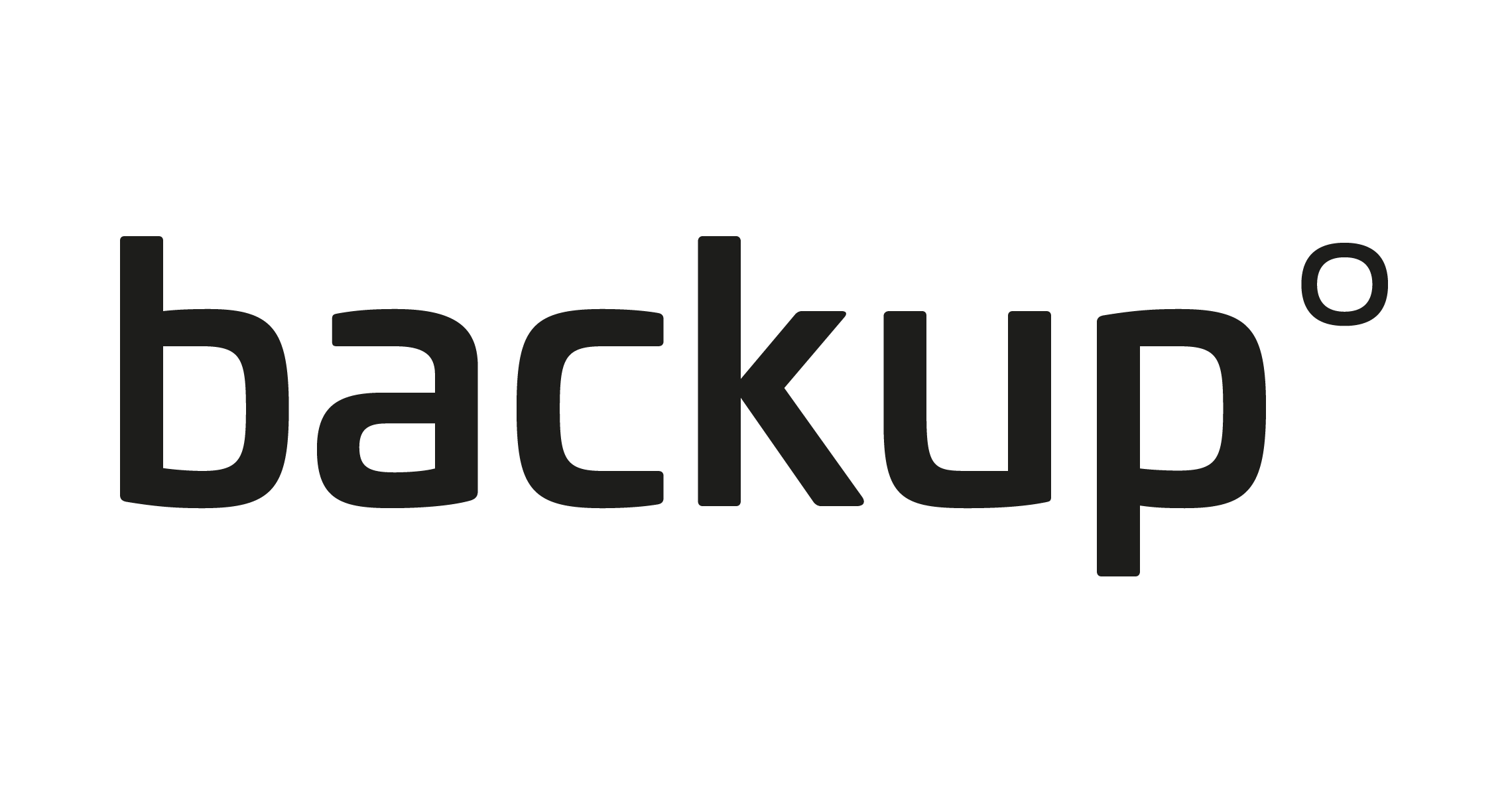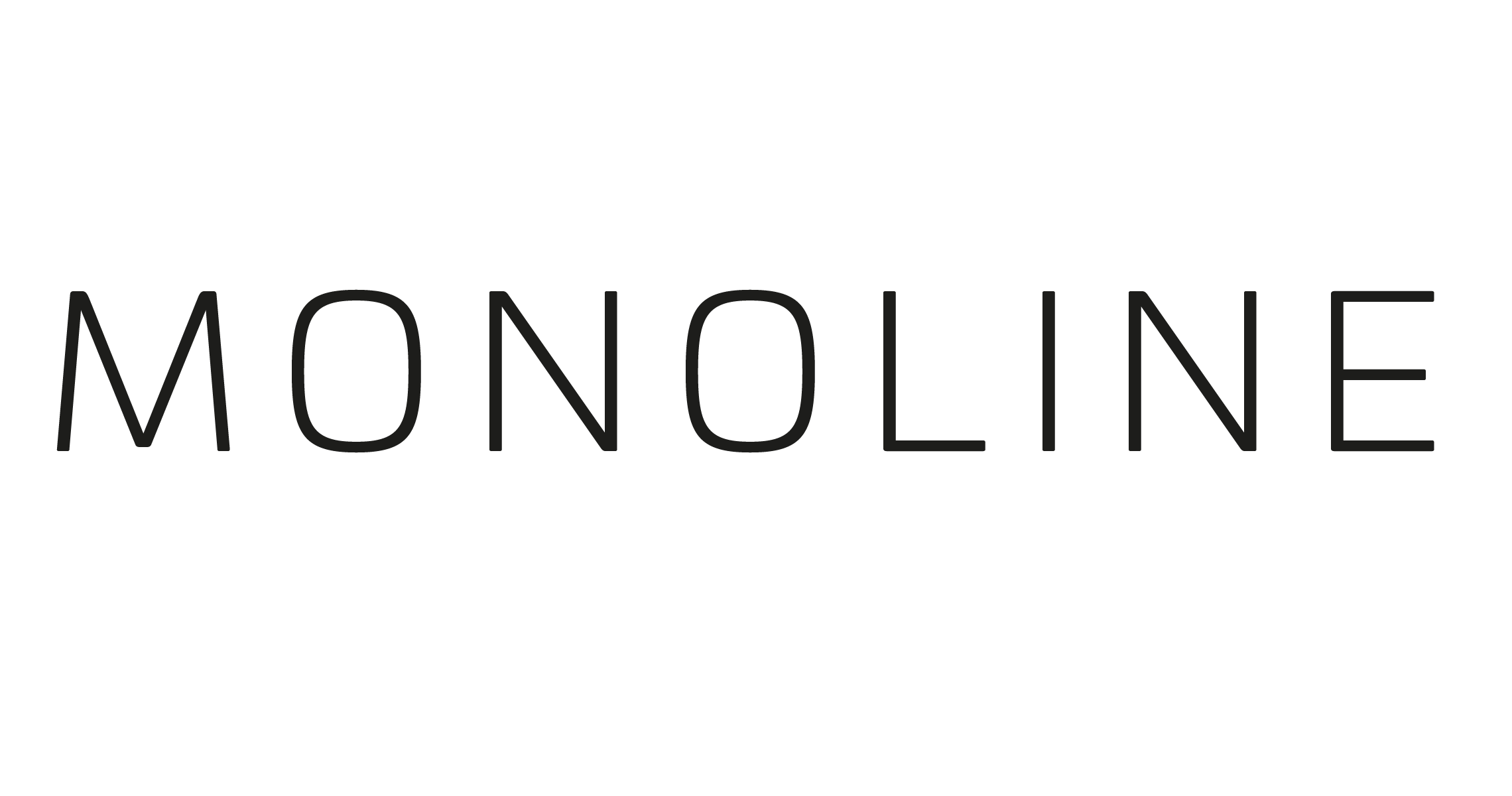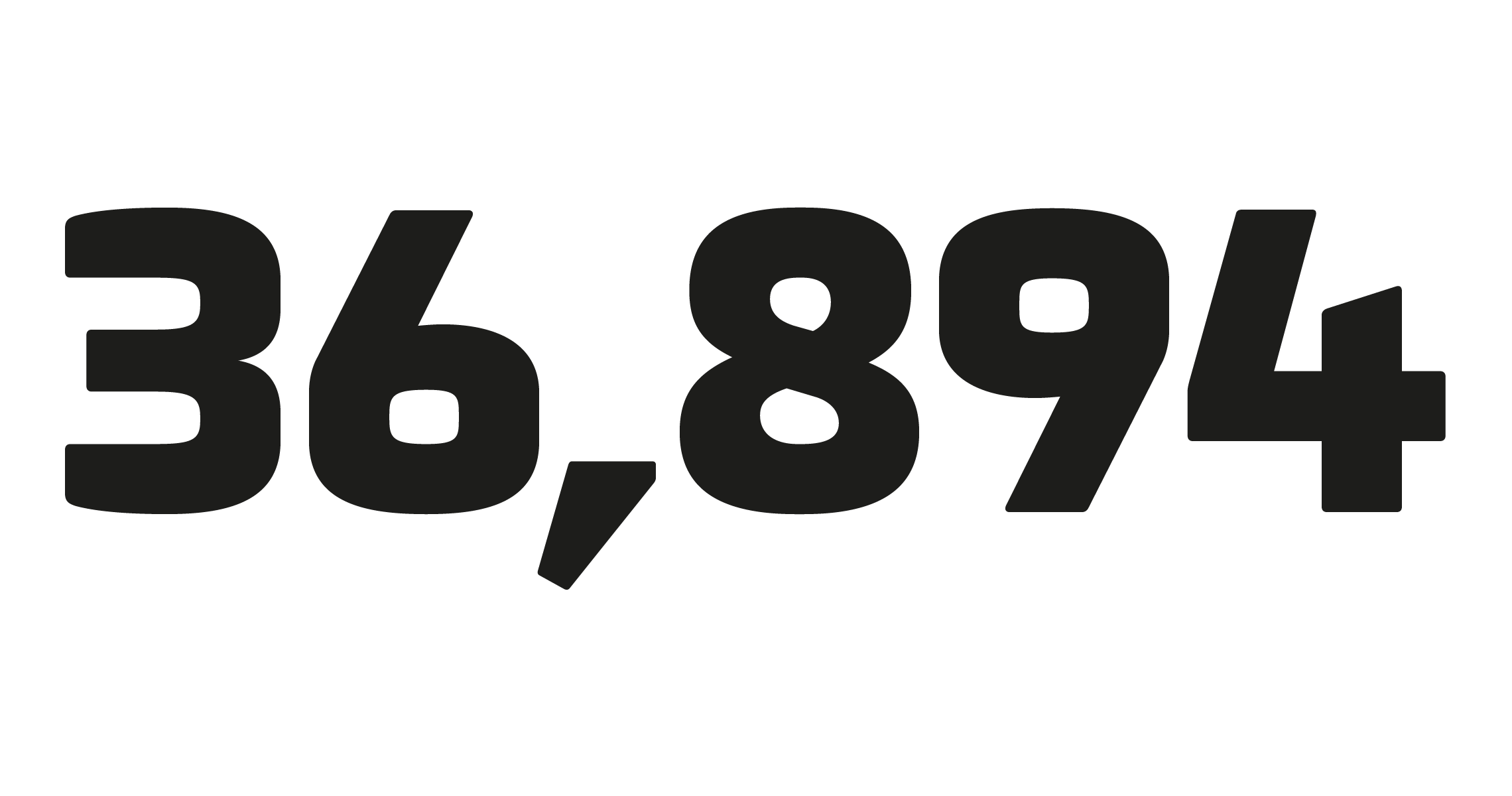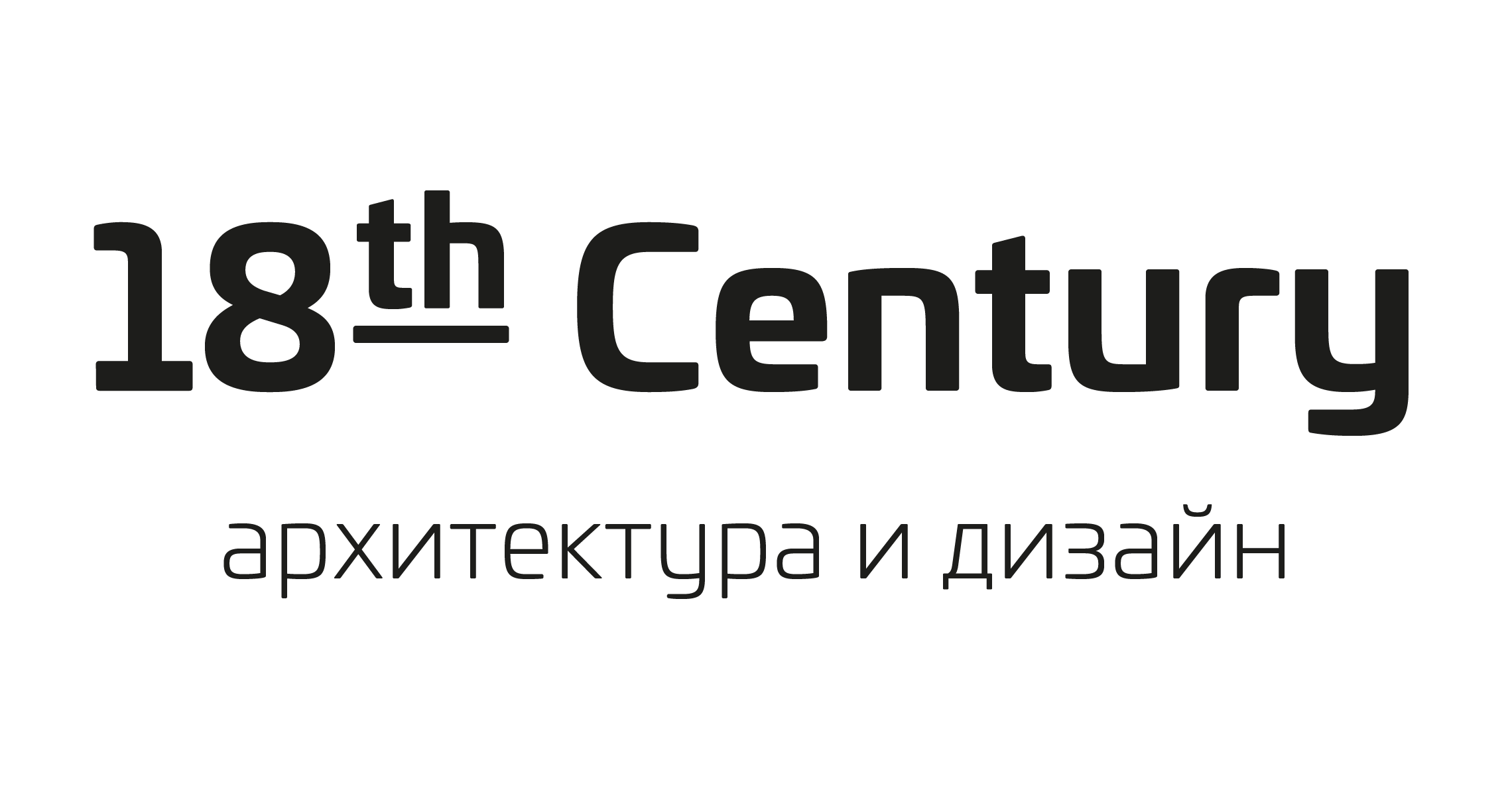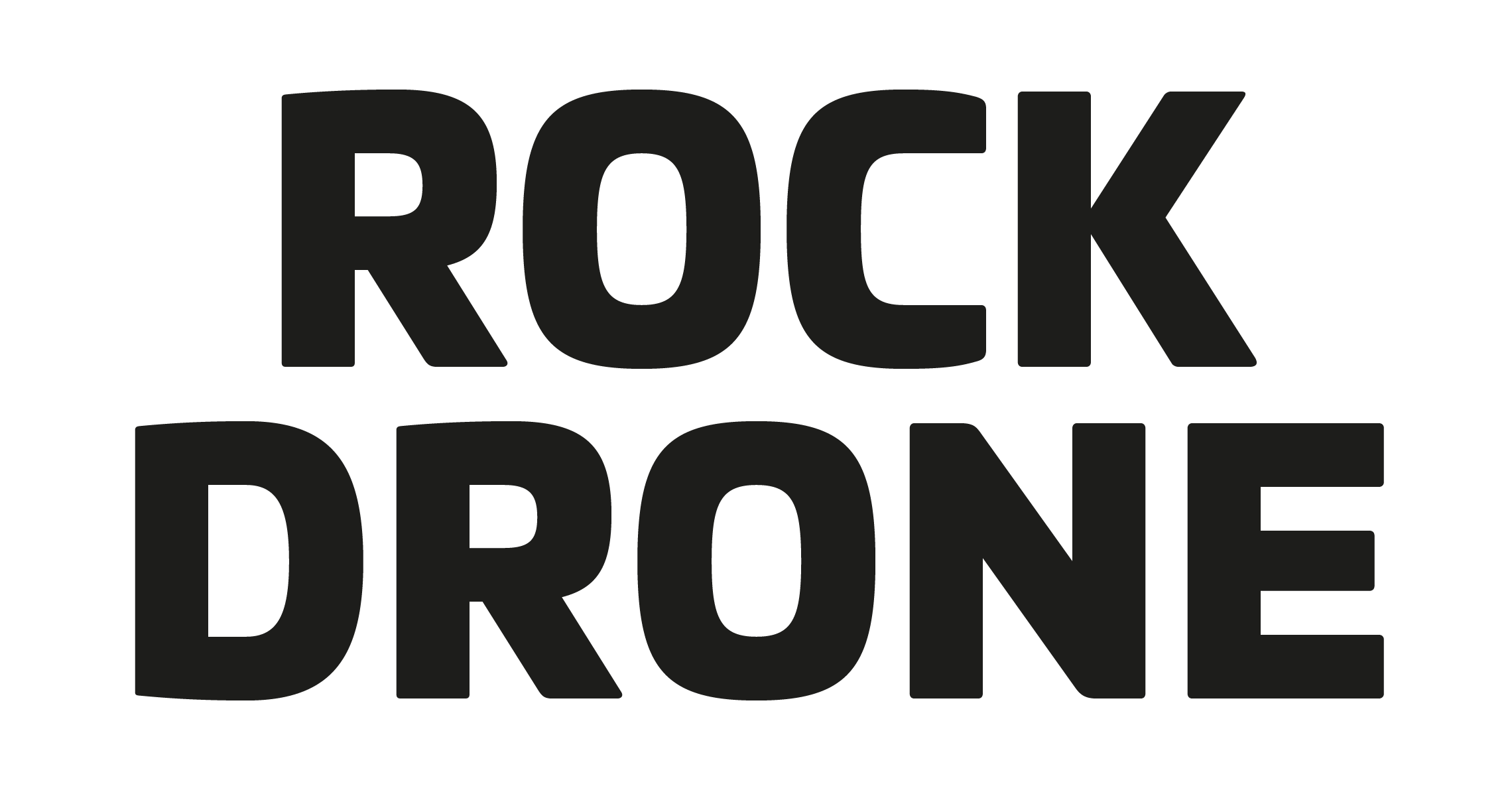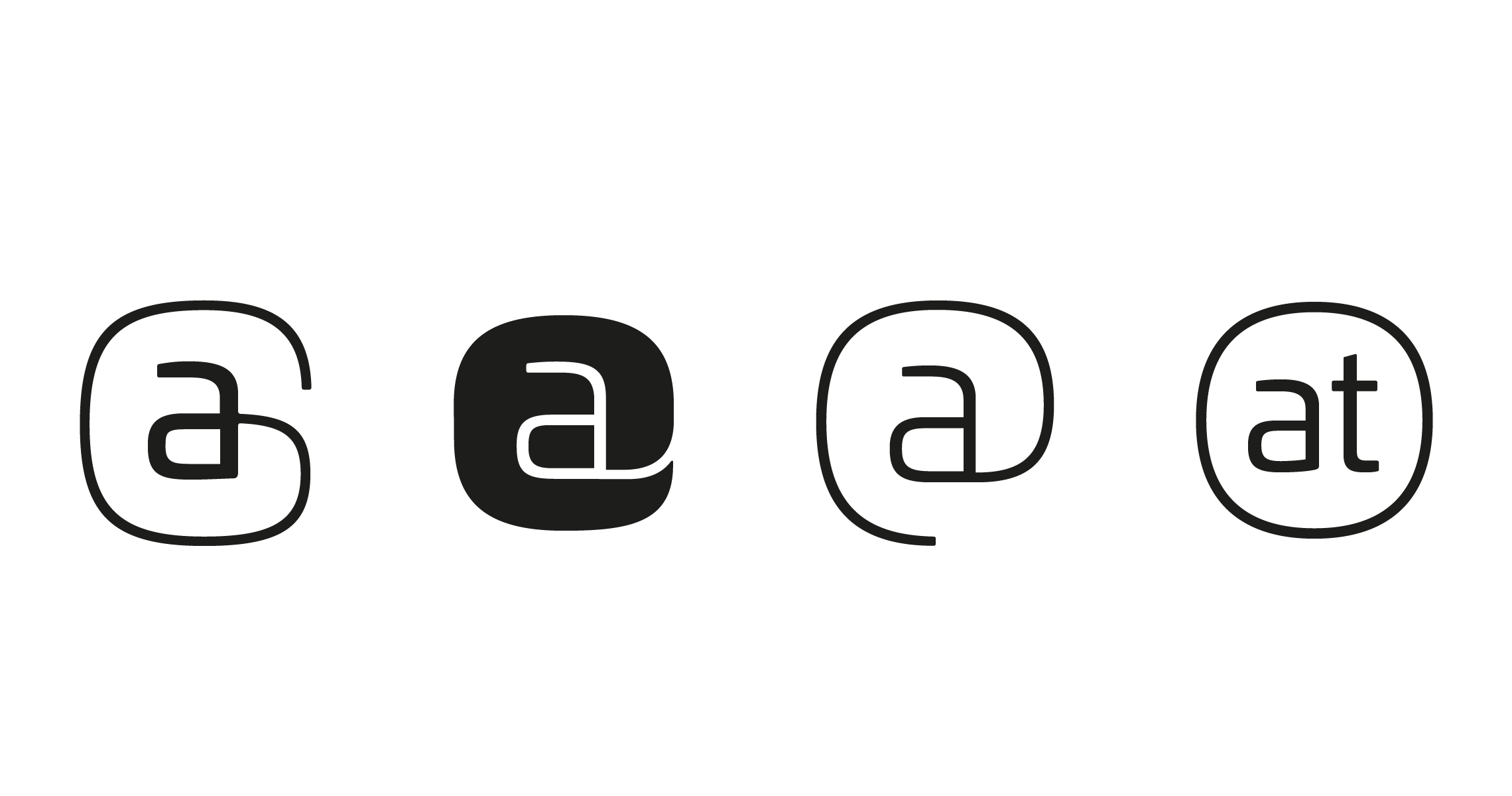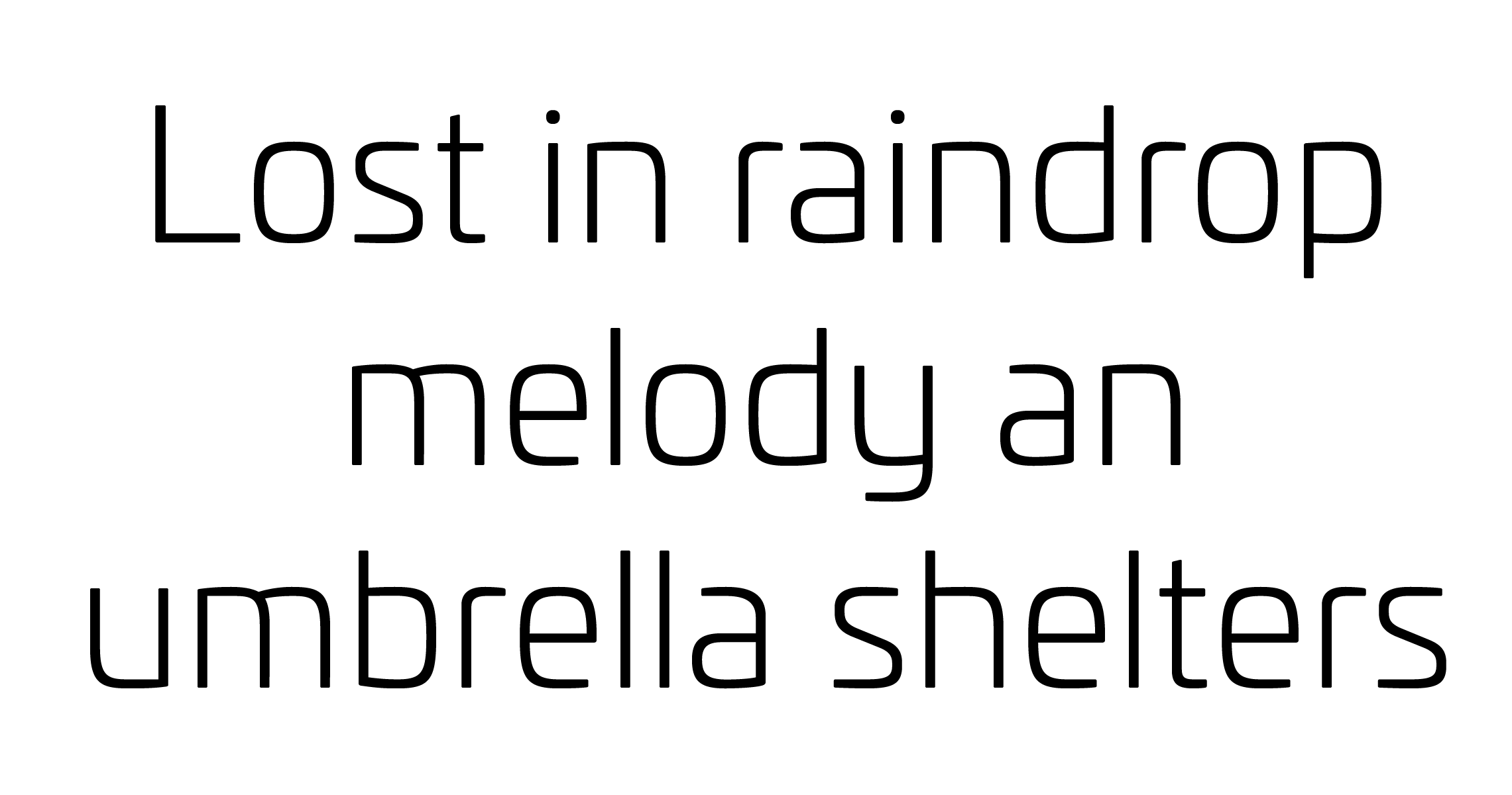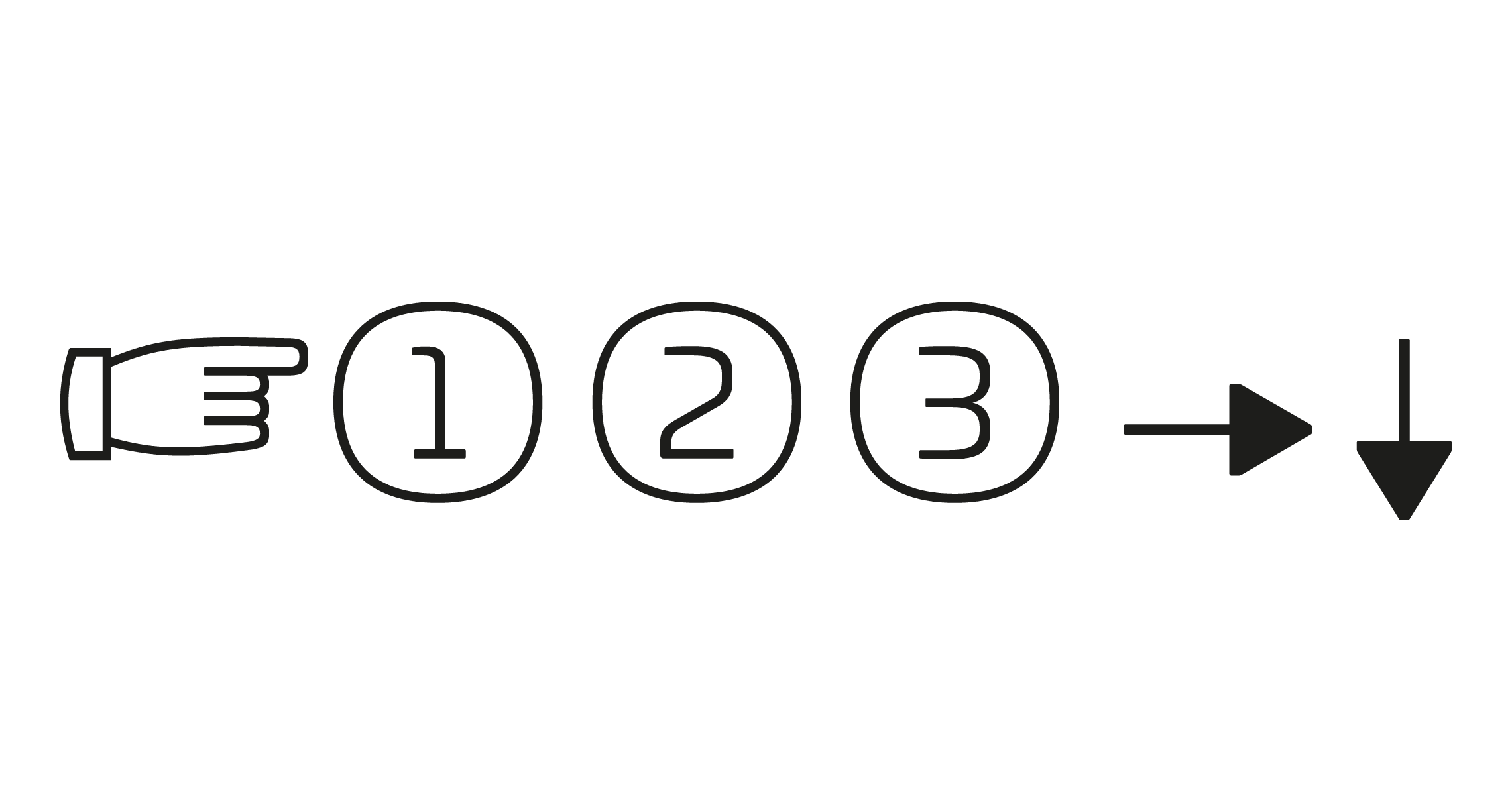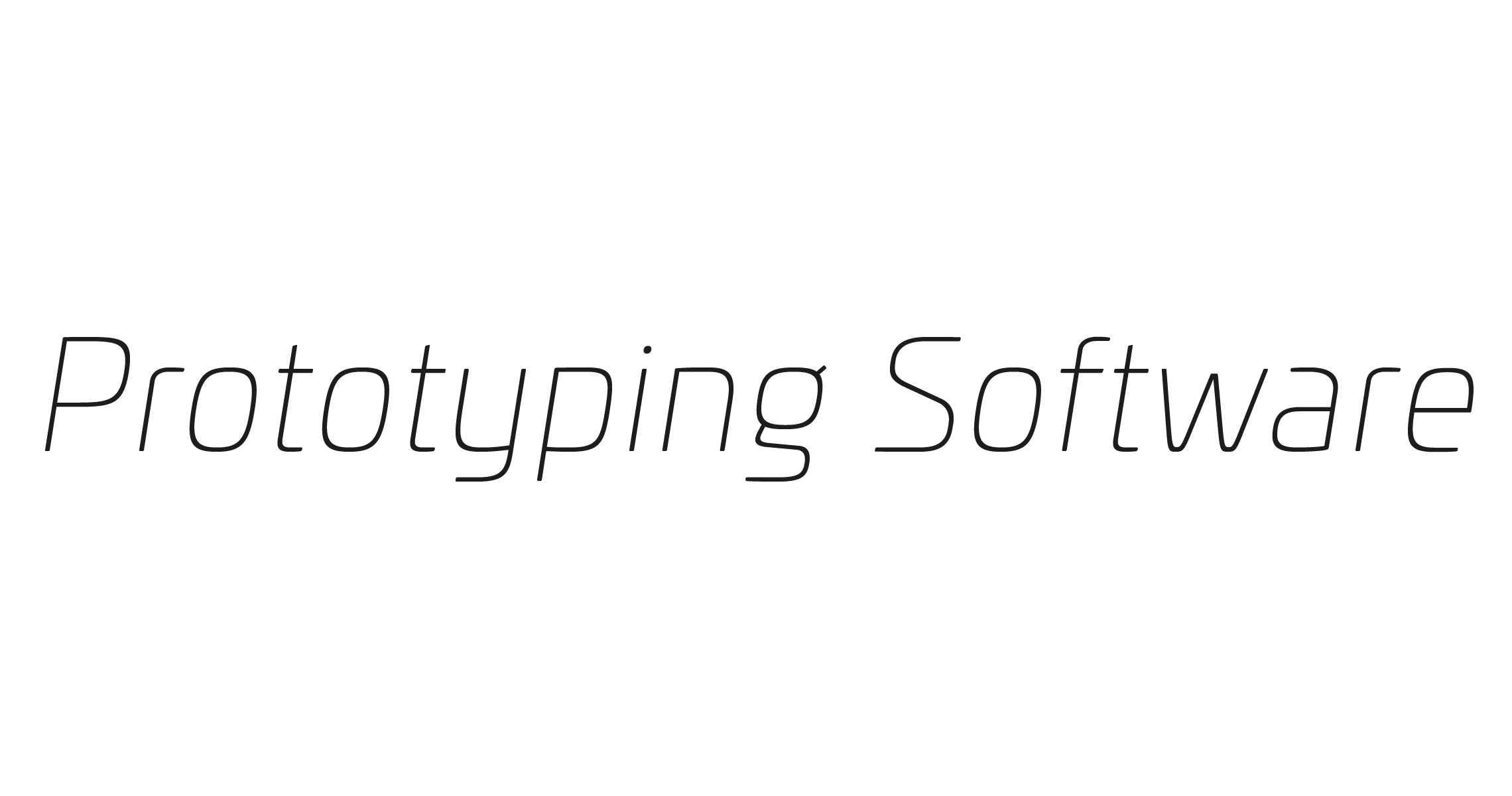
Univia Pro
Uncharacteristic
A powerful square sans serif for modern typographic needs
Univia Pro is a clean sans serif OpenType font family with modernity and versatility in mind. Distinctive with its pleasant look extremely modern, Univia Pro have a lot of personalty mostly achieved by smooth curves and round corners that forms a very identical style of the entire family. With its superelliptical shapes softened by smooth curves and round corners enhancing Univia’s modern look and contributing to an uncomplicated character that makes it ideal for electronic publications, app and modern typographic work. Univia Pro is perfect both for display and text use and due to its ultra modern look, this typeface will be the perfect choice for contemporary typographic needs such as for e-books, web site, user interface, ux design, signage, editorial work, mobile apps etc.
The Univia Pro font family has a poweful and complete OpenType features such as case sensitive forms, circled figures, scientific superiors and inferiors, standard ligatures, old style, lining figures, proportional and tabular figures, slashed zeros. It has also all the necessary features for demanding typography including a selection of surprising at and hashtag signs for all your social needs. Designed also for complex editorial content, this typeface has a powerful home kerning system called “Pro Kerning”.
With more than 2500 pairs of glyphs and many languages, Pro Kerning optimizes headlines, subtitles, texts as well as long paragraphs in real time. Univia Pro has also an extended character set with over 600 glyphs. This family covers over 80 languages from Western Europe, Eastern Europe, Central Europe and Cyrillic language. This typeface has a wide choice of weights and styles with 18 fonts from Thin to Ultra (Thin, Ultra Light, Light, Book, Regular, Medium, Bold, Black and Ultra with corresponding italics). Rewarded by MyFonts as one of the best fonts of 2016, Univia Pro has since become very popular with designers, web designers and companies for their global communication.